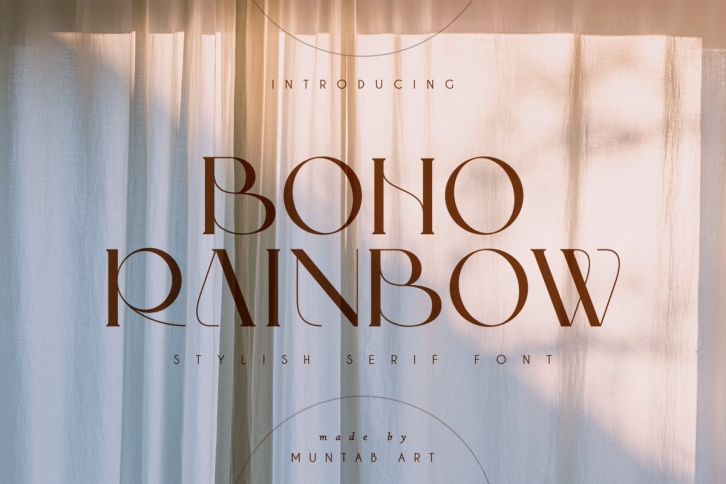
Boho Rainbow is a gorgeous font that was realeased on June 2, 2022. The font can be used in many style contexts and design environments. Perfect for invitations, magazines, websites, logos, and more! It was designed by Muntab Art and the file size is 13.33 MB. Thanks for checking out this font!